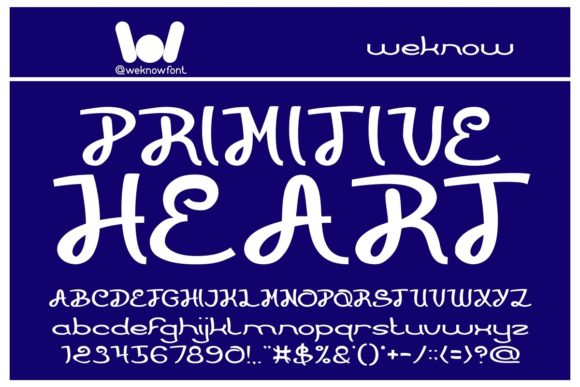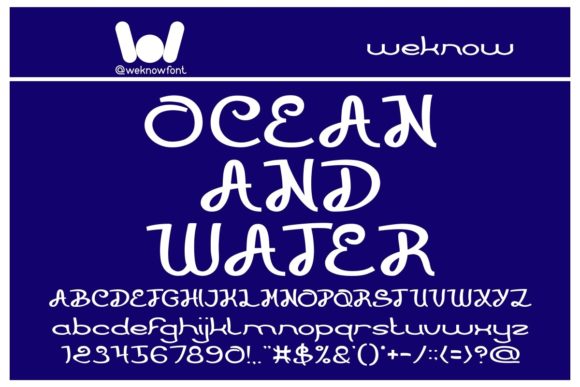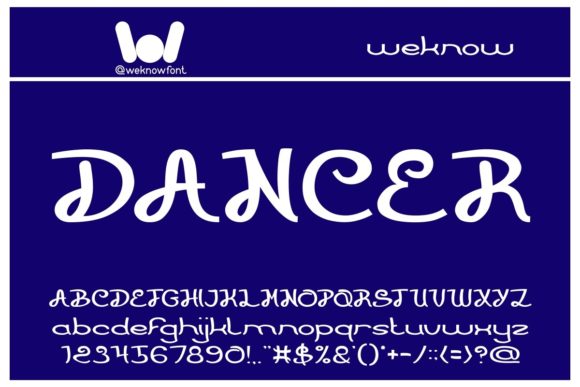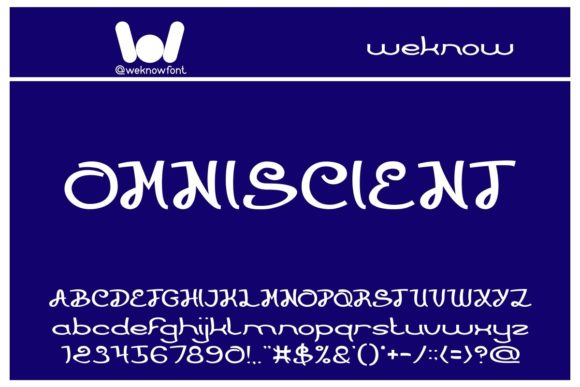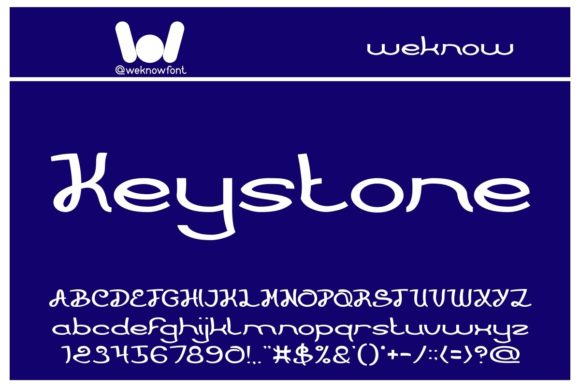
Primitive Heart Font
About Primitive Heart Font
Primitive Heart is a fancy handwritten font suitable for logos, logotypes, headlines, corporate identity, brand identity, apparel industry, posters, music, movies, games, magazines, books, comics, cartoons, YouTube, Instagram, websites, or any of your creative design projects.